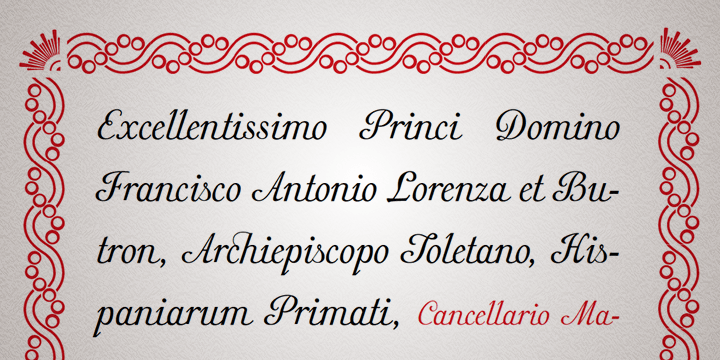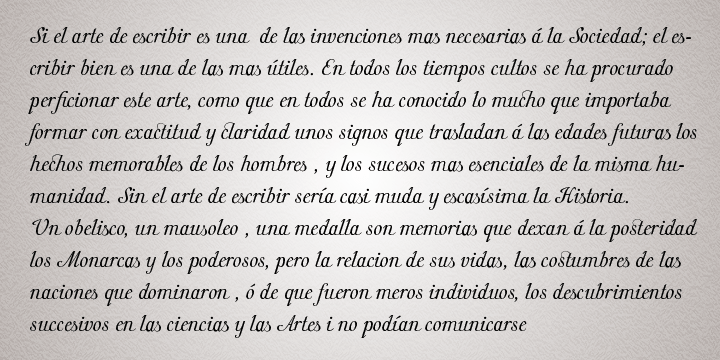
Anduaga
Font Family by Tipo Pèpel
The Anduaga typeface is the interpretation of the calligraphy that Joseph Anduaga proposed for teaching the first letters in the book published in 1780 Arte de escribir por reglas y sin Muestras... printed in the Imprenta Real in Madrid.
Anduaga proposed a system based in composition rules that broke with the imitation models prevailing at that time. This font is accompanied by a set of ornaments extracted from Spanish editions of the second half of XVIII Century.